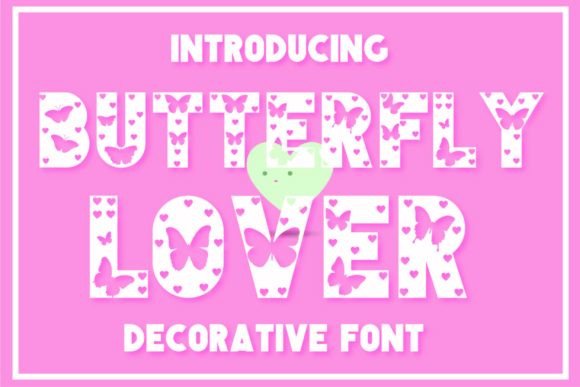
The Butterfly Lover Font: A Sweet Addition to Your Design Arsenal
I’ll never forget the time I was working on a whimsical craft project for a client’s birthday, and I just couldn’t find the perfect font to match the playful vibe. The design was supposed to be a lovely, hand-drawn butterfly-themed card, but something was missing. That’s when I stumbled upon the Butterfly Lover font, and it instantly elevated my design to a whole new level! If you’re a designer, crafter, or creative hobbyist looking for a cute, adorable, and original-looking decorative font, you’re in the right place.
Let’s dive into the good stuff about the Butterfly Lover font! ✨
• ✅ Cute and Playful Design: The font has a charming, hand-drawn feel that’s perfect for projects that need a touch of whimsy.
• ✅ Elegant yet Informal: It strikes a great balance between being elegant and informal, making it versatile for various design applications.
• ✅ Easy to Read: Despite its decorative nature, the font remains clear and readable, even at smaller sizes.
Now, let’s talk about a couple of quirks to keep in mind: 🤔
• ⚠️ Limited Use in Formal Designs: Due to its playful nature, the Butterfly Lover font might not be the best fit for very formal or professional projects.
• ⚠️ Glyph Variety: While the font comes with a range of glyphs and OpenType features, you might find that it’s not as extensive as some other decorative fonts on the market.
Exploring OpenType Features, Glyphs, and Stylistic Alternates
OpenType Features
The Butterfly Lover font comes with a range of OpenType features that allow you to customize your text. These features might include:
• Ligatures: Combine certain letter pairs for a more elegant look.
• Stylistic alternates: Swap out letters for alternative designs.
Glyphs
In addition to its standard characters, the Butterfly Lover font includes a variety of glyphs that can add visual interest to your design. These might include:
• Floral motifs: Perfect for adding a touch of nature to your design.
• Butterfly icons: Great for creating a cohesive look in your project.
Stylistic Alternates
The Butterfly Lover font also offers stylistic alternates, which allow you to swap out certain letters or characters for alternative designs. This feature is great for adding some extra flair to your text.
The Story Behind Butterfly Lover
Imagine a designer who loves butterflies and gardens, and wants to create a font that captures their whimsical beauty. That’s the story behind the Butterfly Lover font! While the actual designer may remain anonymous, their passion for creating beautiful, functional fonts is evident in every detail of this lovely typeface.
Q: What makes the Butterfly Lover font so special?
A: The Butterfly Lover font stands out for its unique, hand-drawn design and versatile nature, making it perfect for a wide range of creative projects.
Q: Is the Butterfly Lover font easy to read?
A: Despite its decorative nature, the Butterfly Lover font is designed to be clear and readable, even at smaller sizes.
Q: Can I use the Butterfly Lover font in my craft projects?
A: Absolutely! The Butterfly Lover font is perfect for craft projects like card-making, scrapbooking, and other paper crafts.